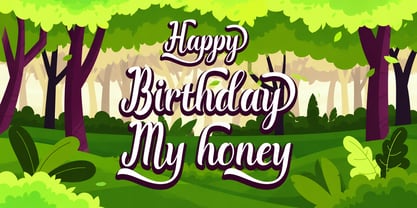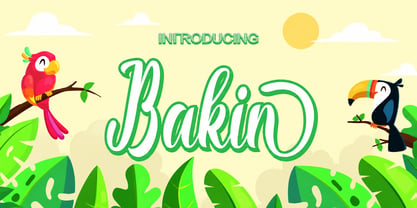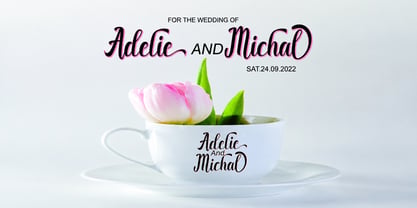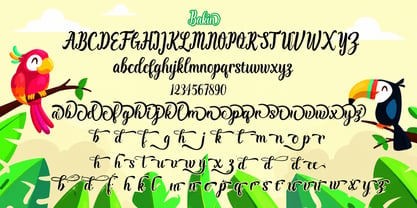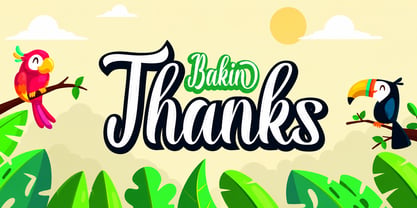
Bakin
by Abbastype
The Bakin Font Family was designed by Muhammad Abbas and published by Abbastype. Bakin contains 48 styles and family package options. More about this family
A modern and elegant script font crafted to infuse a stylish, expressive, and sophisticated touch into every project. With its smooth flowing strokes and graceful letterforms, this font embodies a contemporary handwritten feel, making it ideal for branding, logos, wedding invitations, social media designs, packaging, fashion projects, and creative typography. Its refined yet natural character enhances versatility, allowing it to shine in both elegant and casual designs, thereby adding a personal and memorable visual identity to your work.
Designers: Muhammad Abbas
Foundry: Abbastype